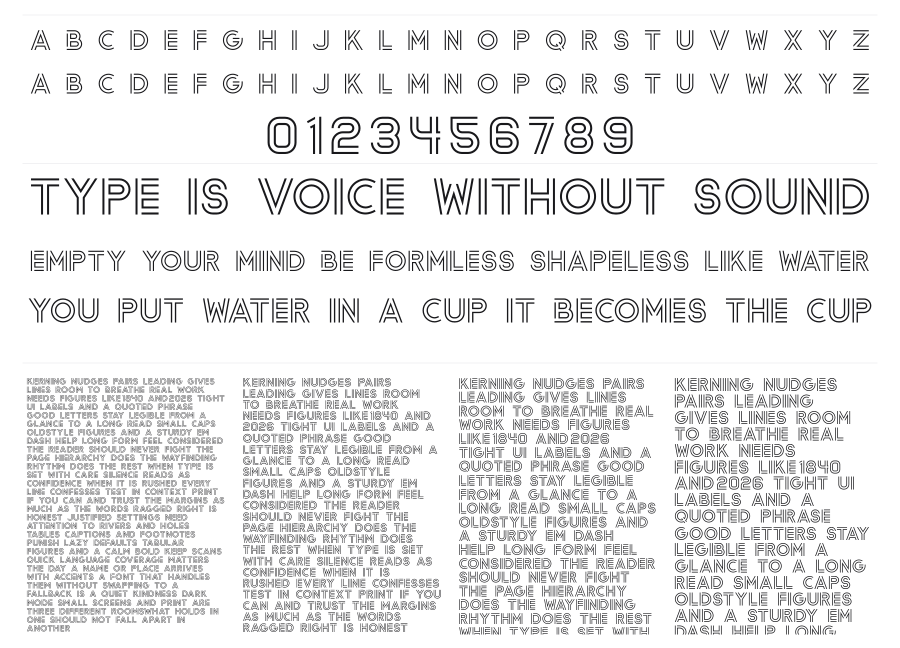
Gope
Gope is a geometric outline sans with a clean double-stroke construction that gives each character a refined, architectural interior line. The wide proportions and subtly rounded corners keep it from feeling stiff, landing somewhere between art-deco elegance and contemporary minimalism. It reads best large, where the inline detail can breathe.